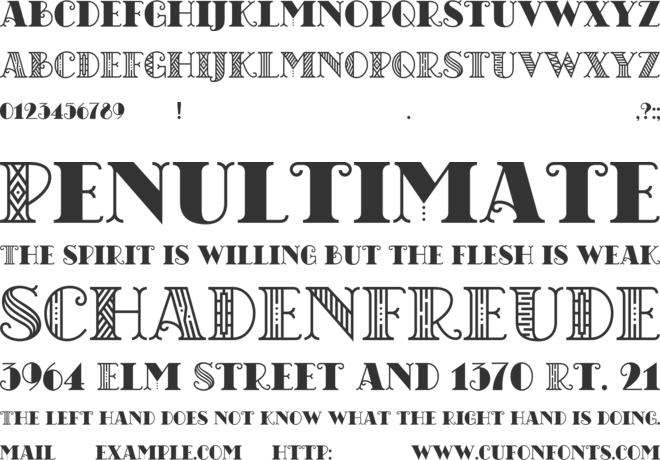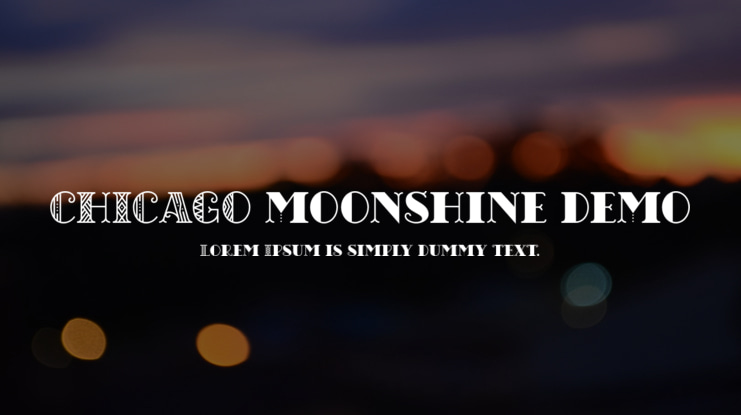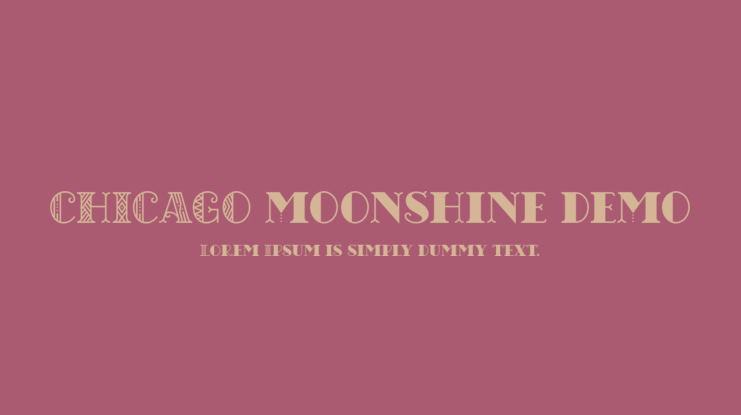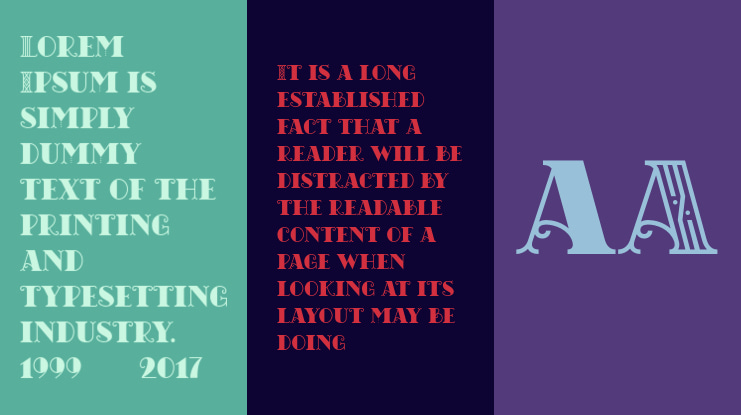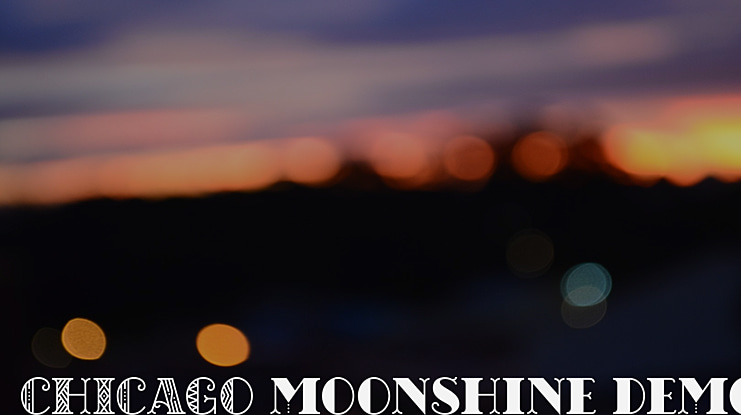
CHICAGO moonshine demo Font
CHICAGO MOONSHINE is an Art Deco serif All Caps display font.
Please note that this is primarily for headlines, logos posters in large size.
The full version character set contains Western and Eastern European latin languages, basic symbols and punctuation. The Capital letters has geometric patterns and in place of lowercase letters there are filled in Capitals.